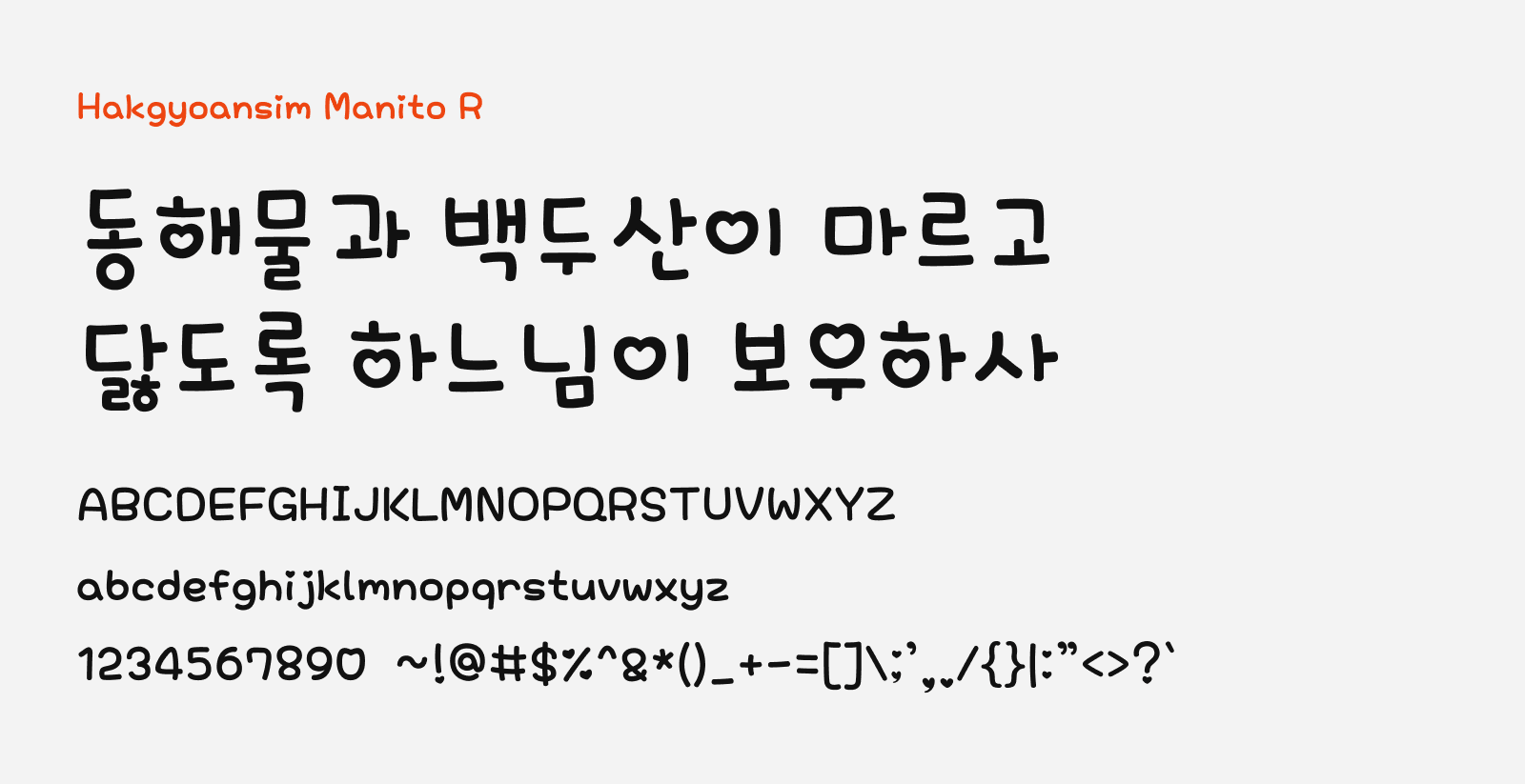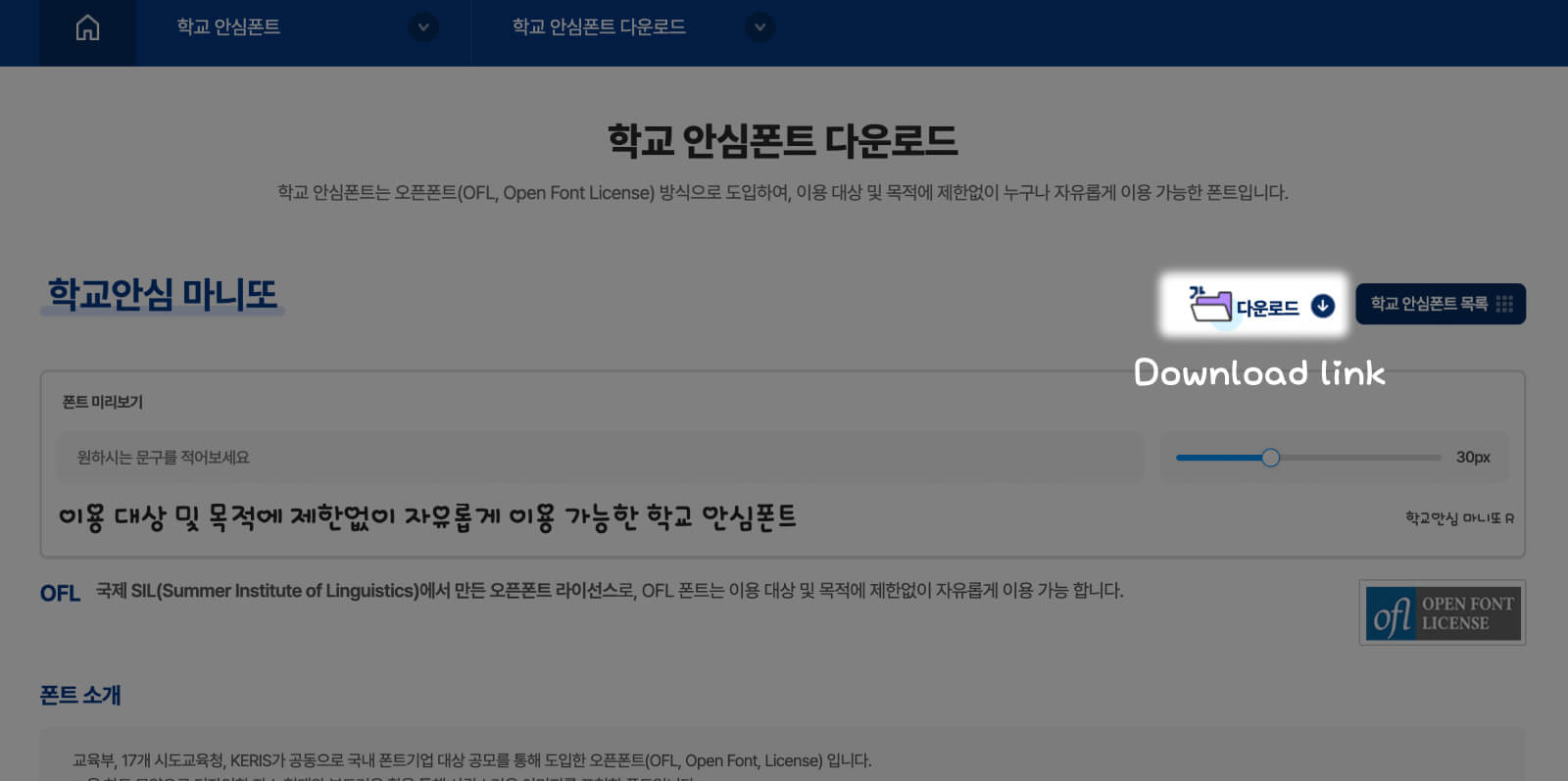
Hakgyoansim Manito
Hakgyoansim Manito (학교안심 마니또) is a cute, rounded free Korean font that comes with plenty of heart shapes. It expresses a lot of love and tender by replacing the original “o” ring shapes in the original character design to the heart shape, and with the soften strokes with slight curves and rounded edges. Overall, it does carry a lot of characteristics of a handwriting font.
Hakgyoansim Manito comes with one regular weight, and it’s suitable for designs that expresses love and care. This font is one of the many fonts that are provided by Korea Education and Research Information Service (KERIS) through their Educational Copyright Support Center. “Hakgyoansim” means school safety, which means this font can be safely used on educational materials freely without any copyright compliance concern. Also, this font is released under SIL Open Font License, it can also be used on personal and commercial projects.